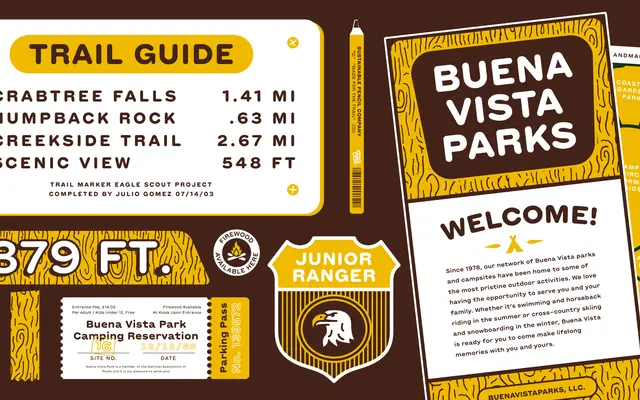
Locale
Fort Foundry · Mattox Shuler
A rounded sans-serif by Mattox Shuler that blends geometric and neo-grotesque qualities, offered in both proportional and monospaced cuts.
Designed by Mattox Shuler and produced by Brian Brubaker, Locale pairs a generous x-height with softly rounded terminals and playful stroke construction. The family runs across four weights from Regular to Heavy, each with a matching italic, and the full set is mirrored in a Locale Mono subfamily for code or tabular contexts. Broad Latin Extended language support and OpenType features including fractions, case-sensitive forms and stylistic alternates round out a practical workhorse.
Fort Foundry describe it as sitting between geometric and neo-grotesque styles with rounded terminals, placing it firmly in the rounded grotesque subcategory of sans-serif.